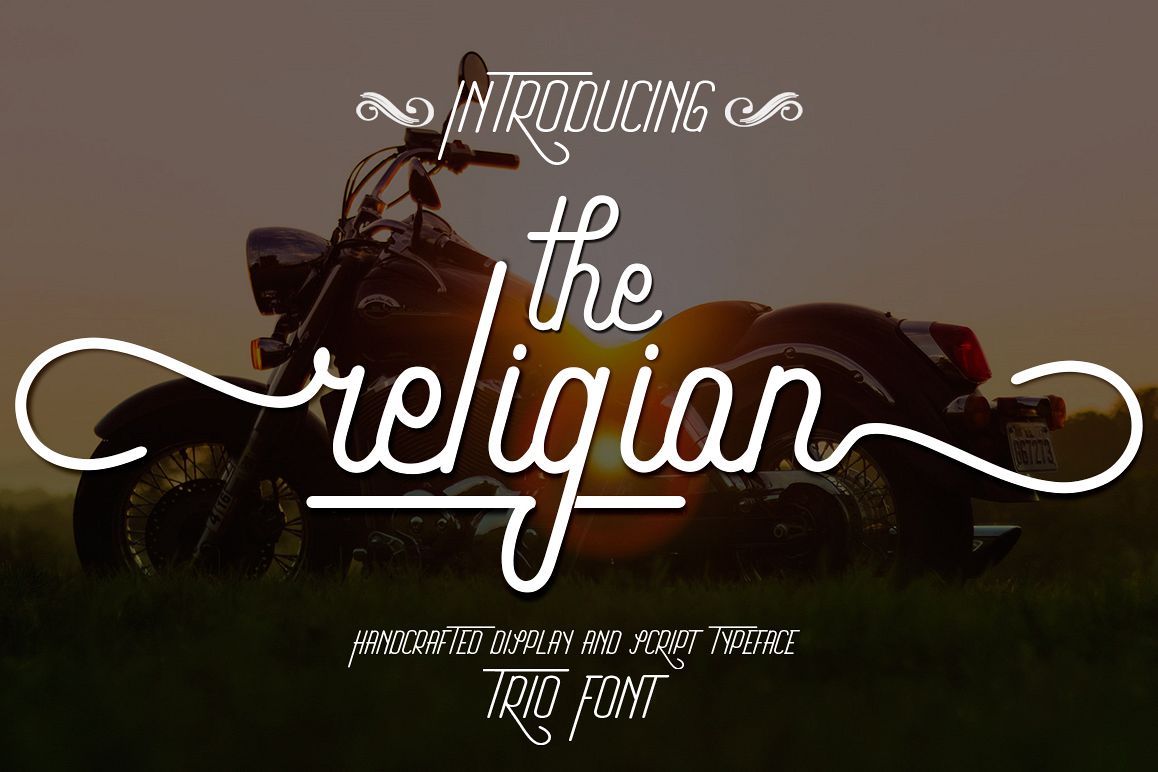
The Religion Trio Font
Ritalina
The Religion Alt
The Religion
Zenithal
Introducing the newest else is so beautiful and comes with
three very elegant fonts that are designed to compliment each other
perfectly.
Proudly presents our latest product 'The Religion Font, Zenithal Font and Ritalina Sans font!,
the third font is composed with 3 different styles 'script and sans'.
three beautiful fonts would be perfect to incorporate into your design.
vintage style. Large font for logo products, logo wedding cards,
clothing brand logo, design Vintage and more.
The Religion Font equipped with :
• Uppercase,lowercase,numeral,punctuation & Symbol
• Stylistic alternates
• Countectual Alternates
• Stylistic Set01 - Stylistic Set012
• Swash
The religion features 561 glyphs and This is all the code with Unicode PUA -
Ritalina Font equipped with :
• Uppercase, numerial, punctuation & Symbol
• Stylistic set
Zenithal Font equipped with :
• Lowercase & nomerial
• Stylistic set